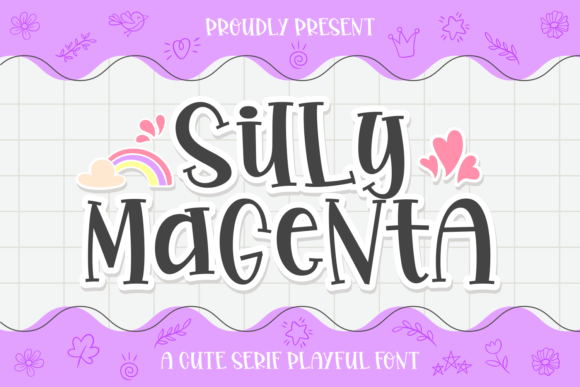
Dive into a world of whimsical charm with Silly Magenta, a captivating serif font designed to awaken your imagination. Created by the talented Situjuh, this font is a symphony of elegant curves and enchanting flourishes that will transform your creative endeavors into captivating masterpieces. Experience the magic of Silly Magenta's embrace, and let its playful spirit ignite your projects with a unique and endearing touch.
Unleash the allure of Silly Magenta and transport your audience to a realm of pure delight. Picture invitations adorned with its enchanting strokes, greeting cards that radiate warmth and cheer, or product packaging that exudes a sense of playful elegance. Every letter dances upon the page, inviting your viewers to embark on a journey of smiles and heartfelt connections.
With Silly Magenta, your words become an art form, each syllable imbued with a touch of whimsy and charm. Its soft curves evoke a sense of nostalgia, while its delightful flourishes add an air of sophistication that will leave your audience captivated. Whether you're crafting a heartfelt letter, designing a stunning poster, or creating eye-catching social media graphics, Silly Magenta will elevate your message and make it resonate with your audience.
Discover the versatility of Silly Magenta, a font that effortlessly adapts to a myriad of creative expressions. From the delicate grace of wedding invitations to the vibrant energy of children's books, Silly Magenta seamlessly weaves its magic, enhancing your words with a timeless allure. Its playful nature lends itself to playful branding, while its elegant curves add a touch of refinement to formal documents. Unleash your creativity and explore the limitless possibilities that await with Silly Magenta.
Embrace the enchanting allure of Silly Magenta and embark on a creative journey filled with joy and inspiration. Let its playful spirit infuse your projects with a sense of wonder, leaving a lasting impression on your audience. With Silly Magenta, your words will dance off the page, capturing hearts and igniting imaginations. Discover the magic that awaits and make Silly Magenta your font of choice for projects that spark joy and leave an unforgettable mark.